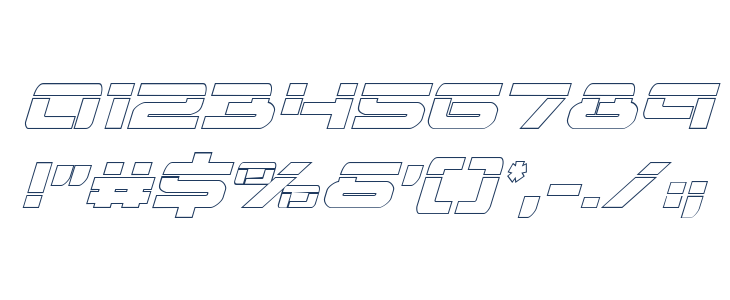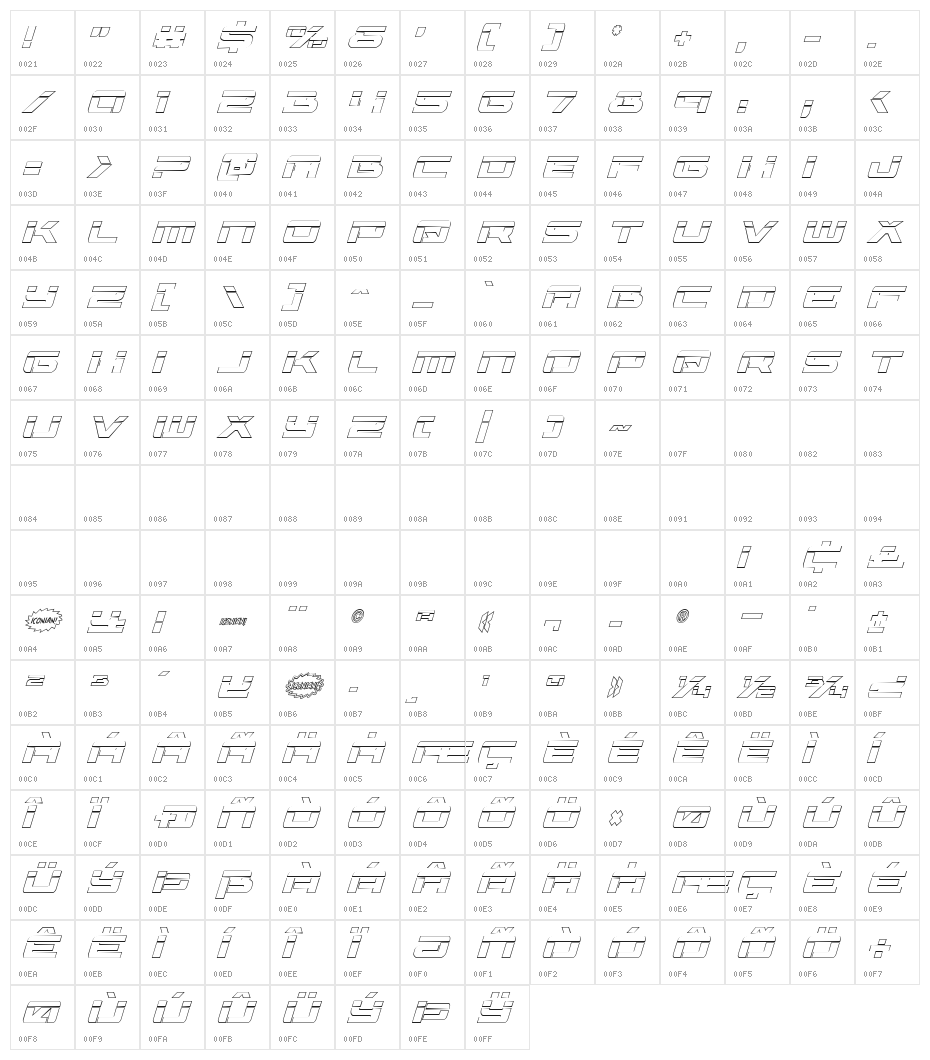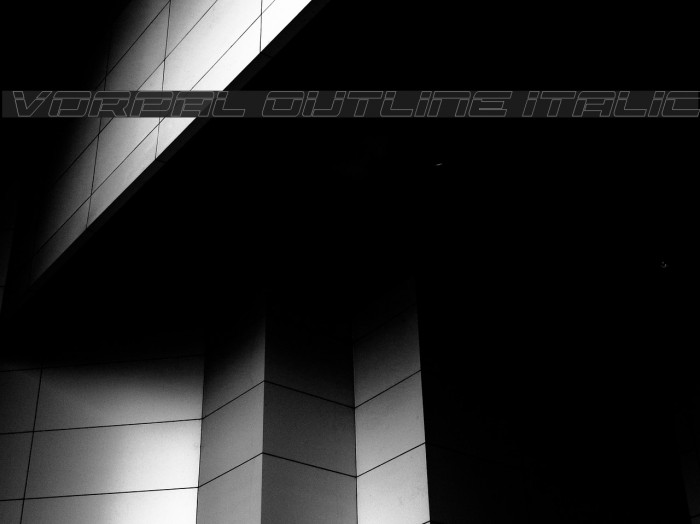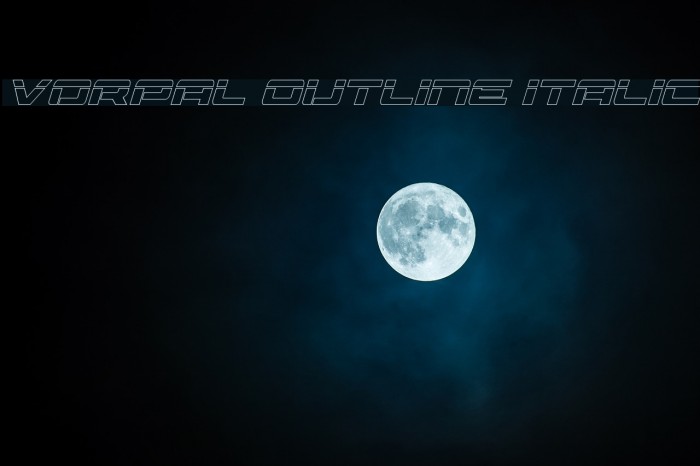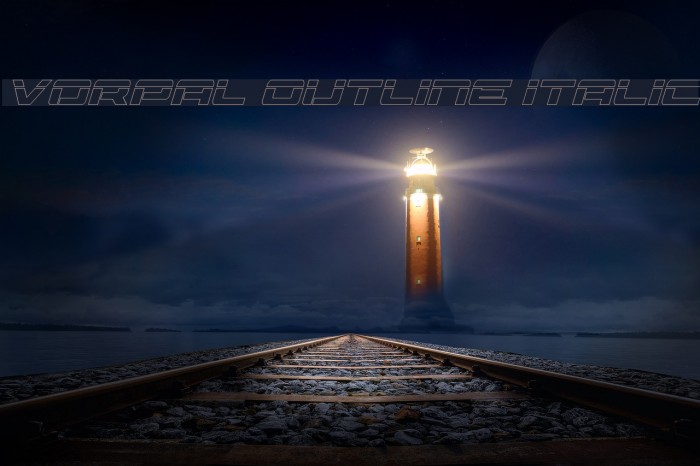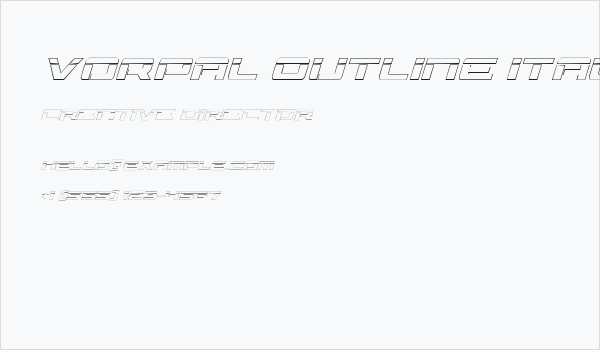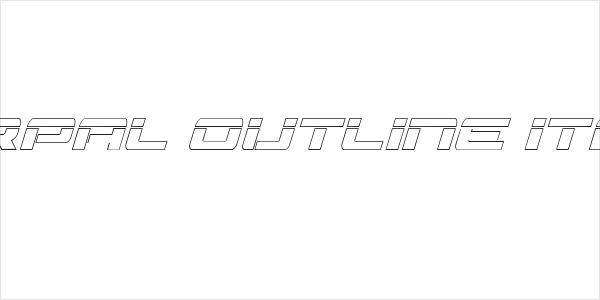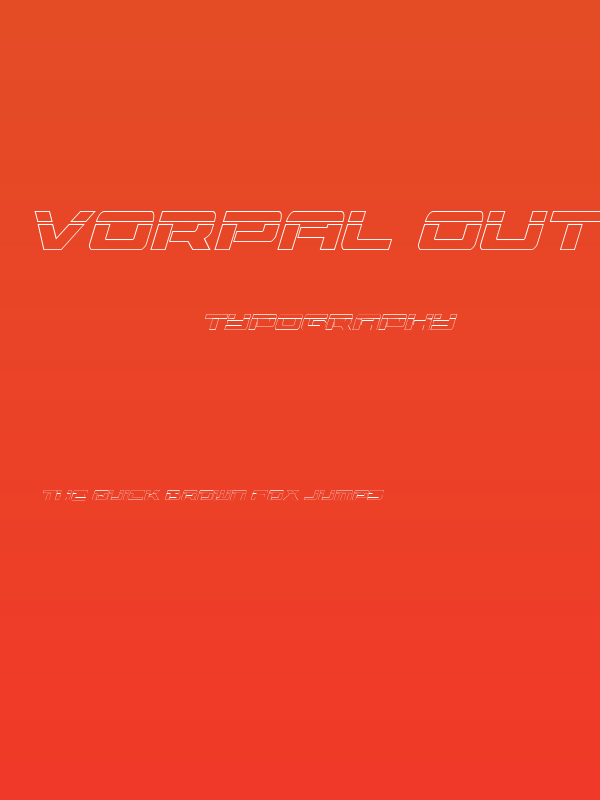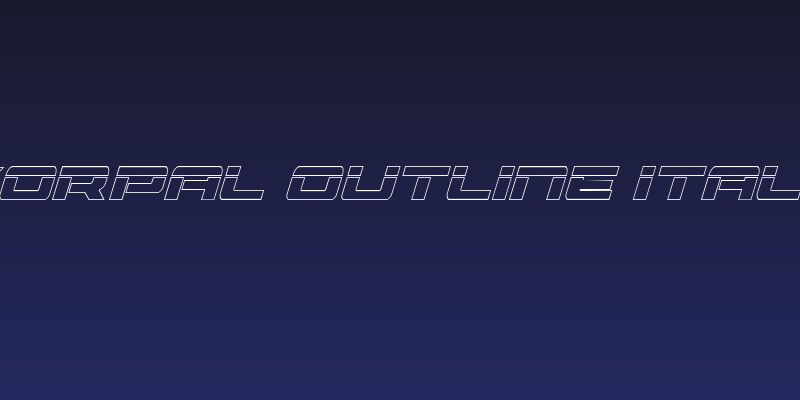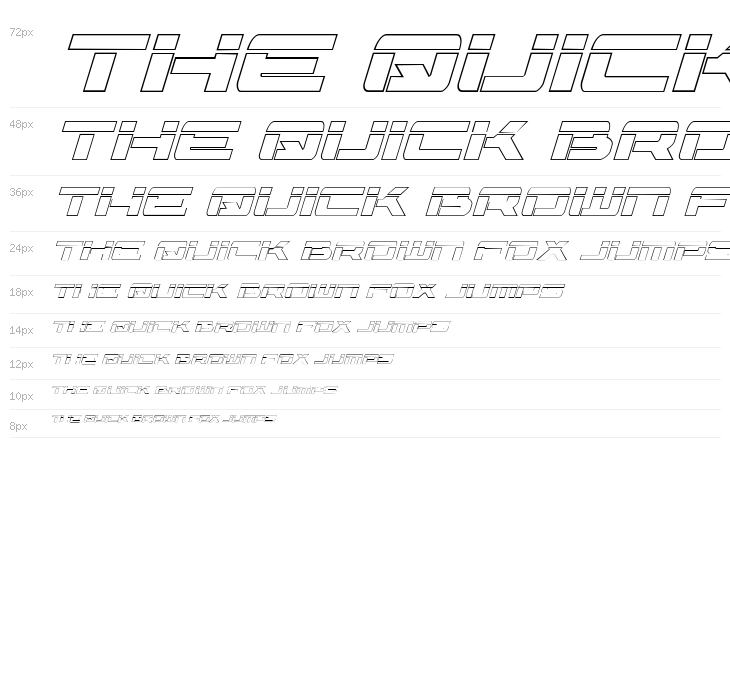
Vorpal Outline Italic Font
Vorpal Outline Italic Description
This font features a futuristic and geometric outline style, characterized by its sharp angles and clean lines. Each character is designed with a consistent stroke width, creating a cohesive and modern appearance. The italic slant adds a dynamic and forward-moving feel, enhancing its contemporary look. The font is highly legible, with distinct letterforms that maintain clarity even in smaller sizes. Its unique outline design makes it stand out, offering a bold statement without being overly complex. The font's structure is balanced, with uniform spacing and alignment, ensuring readability and aesthetic appeal.
| Proposed Projects | Ideal for sci-fi themed projects, tech branding, video game titles, and futuristic posters. |